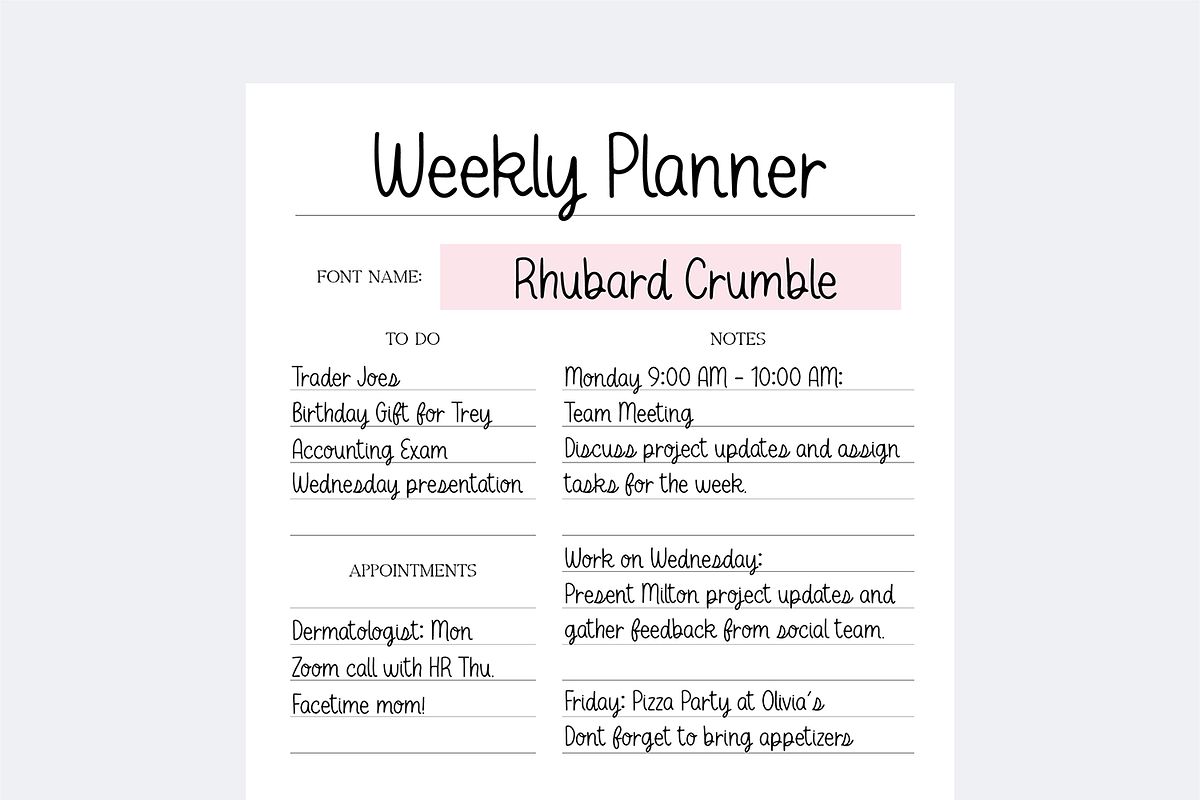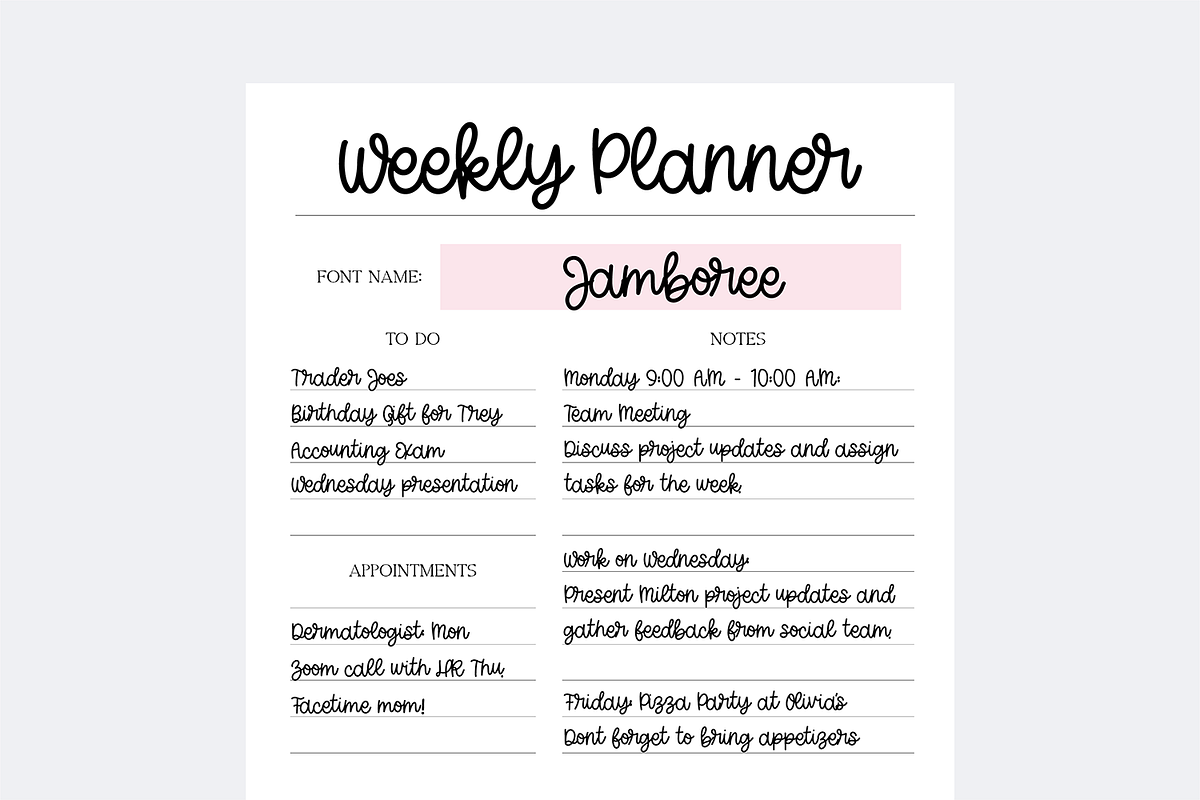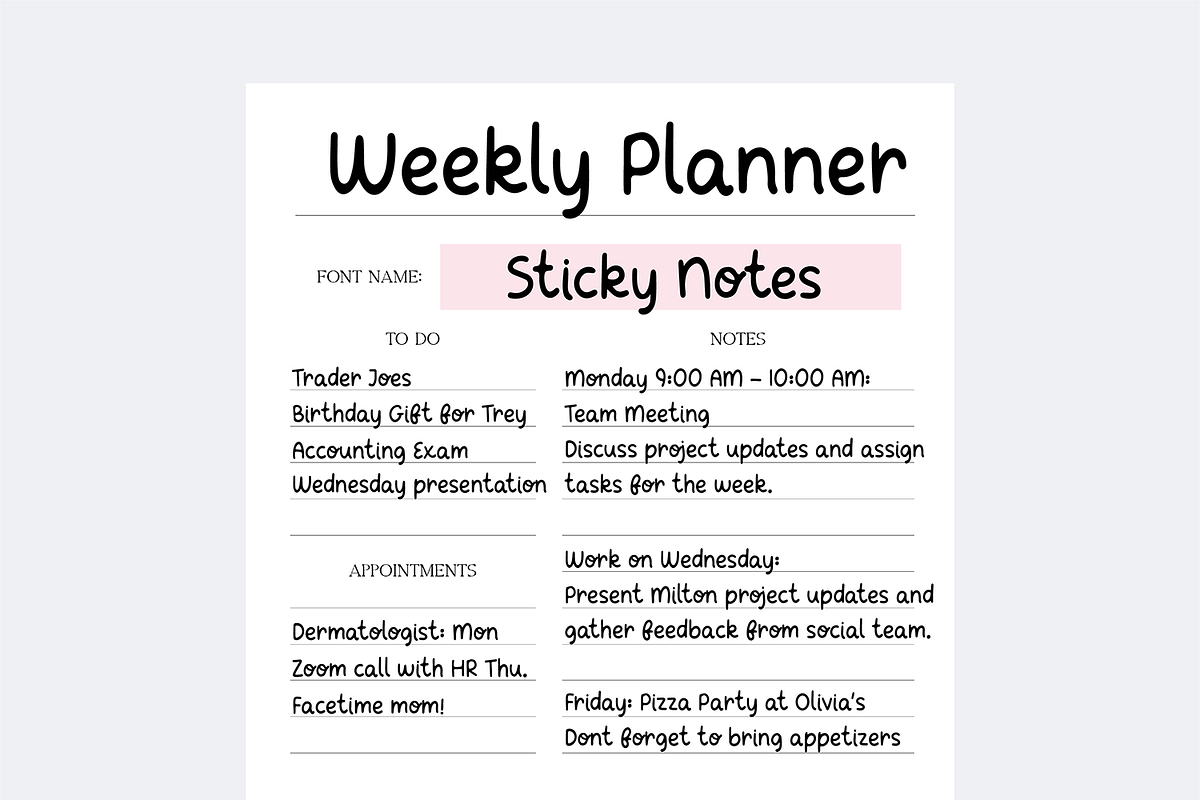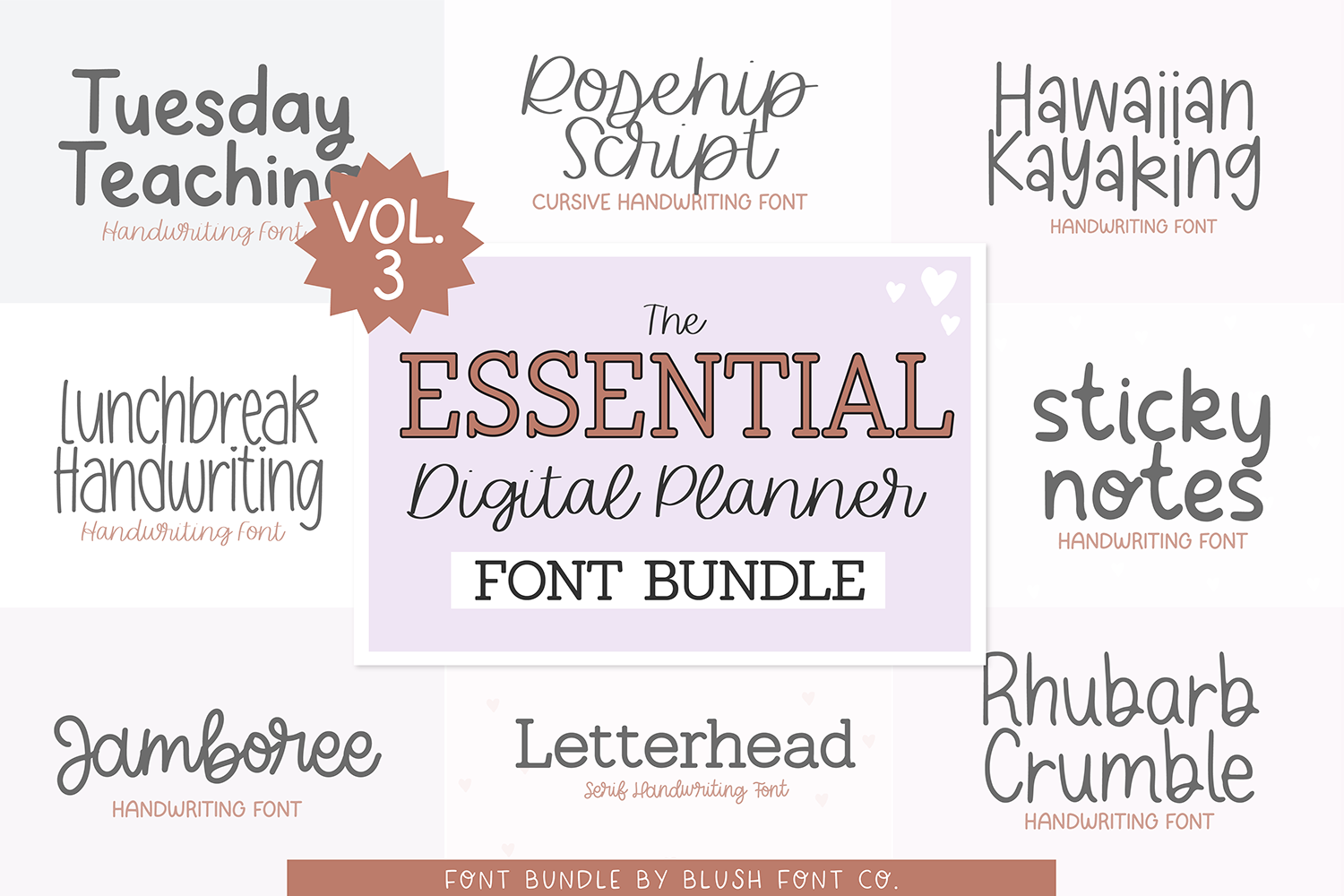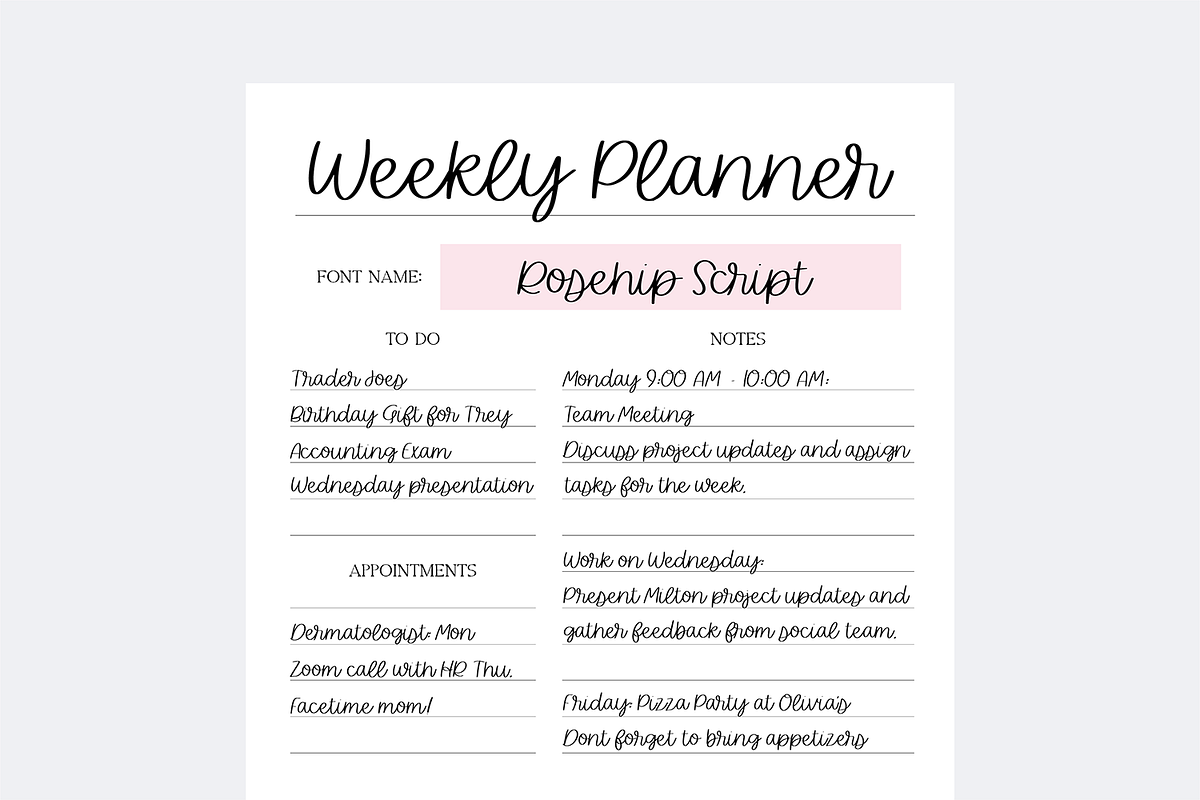
Essential Digital Planner Fonts V3
The ESSENTIAL Digital Planner Handwriting Font Bundle. VOL 3! Don't forget to check out Vol. 1 and 2. 8 cute and clean handwritten fonts made for Goodnotes and digital planners.
Fonts included: Rosehip Script Jamboree Sticky Notes Hawaiian Kayaking Tuesday Teaching Letterhead Rhubarb Crumble Lunchbreak Handwriting